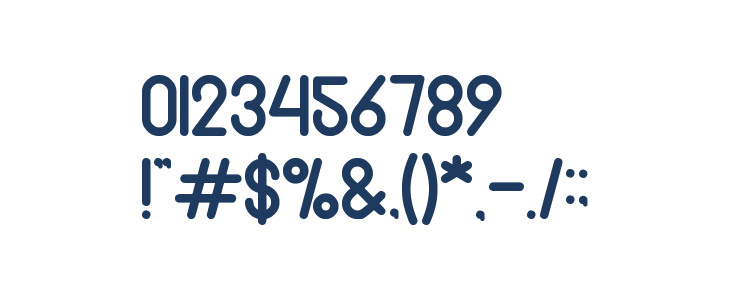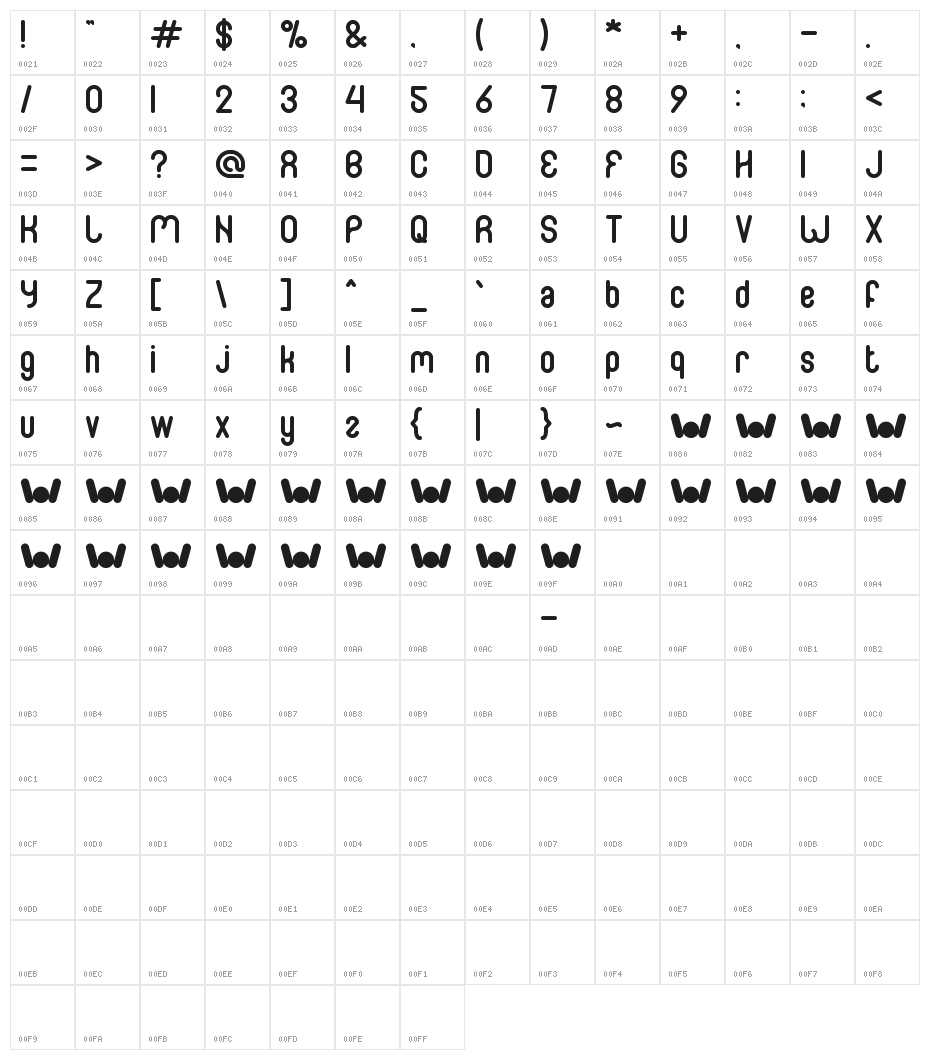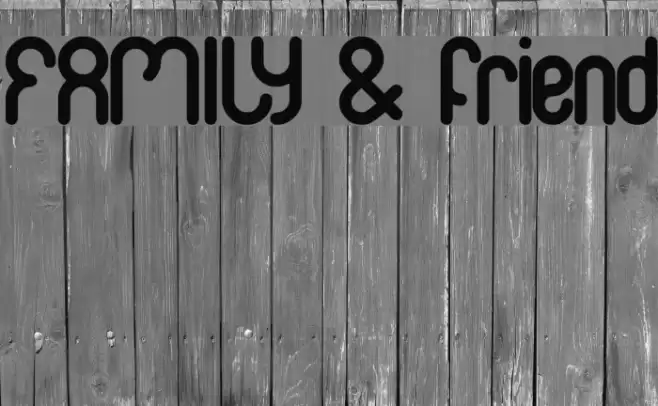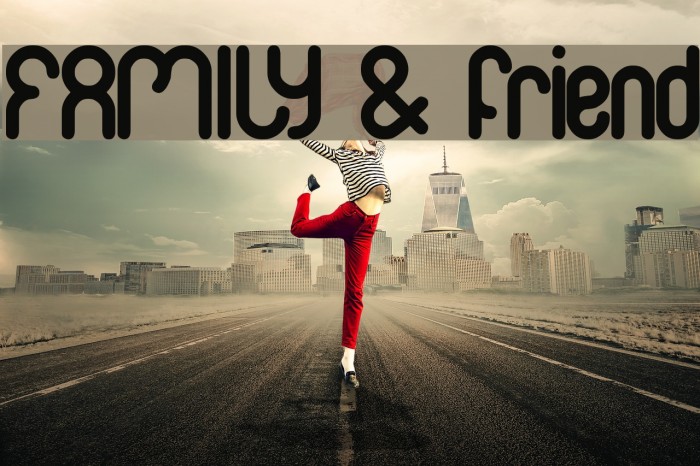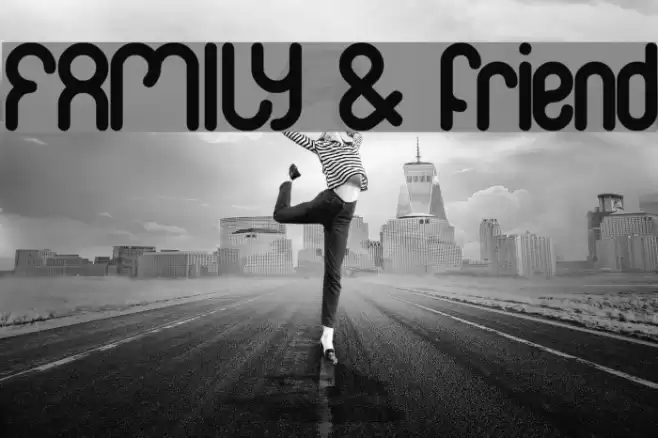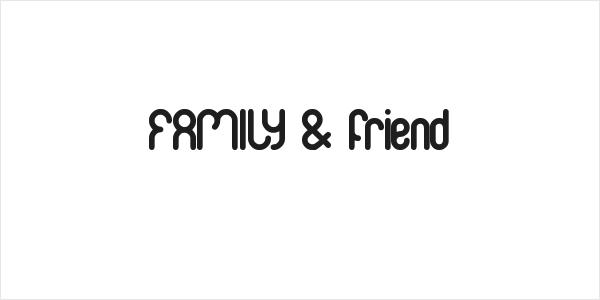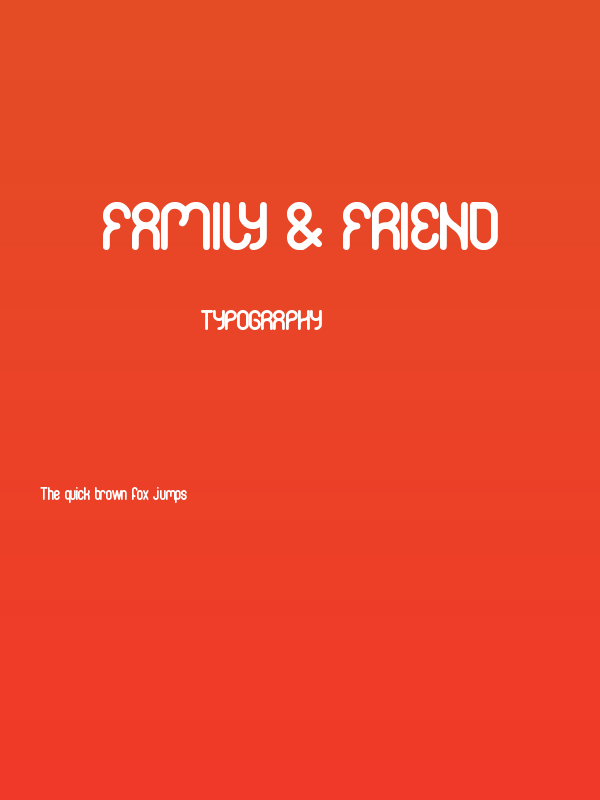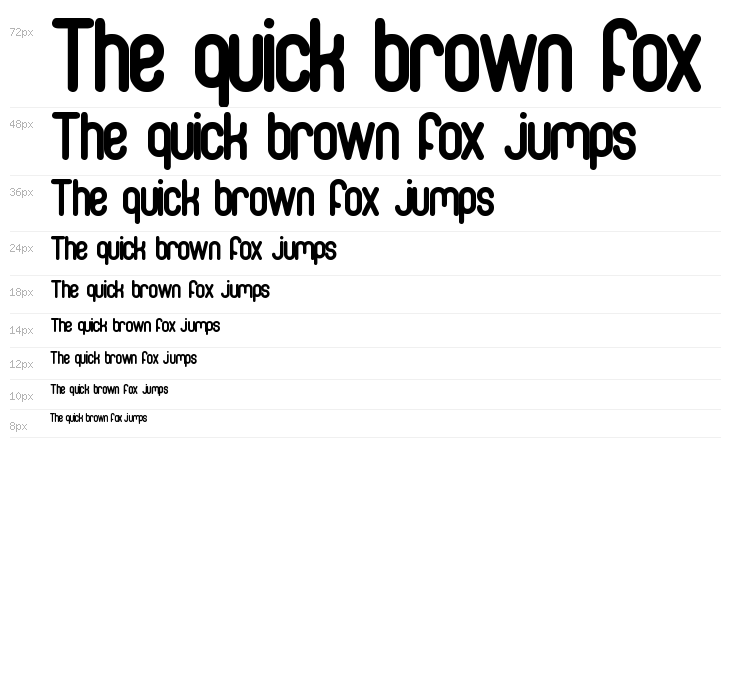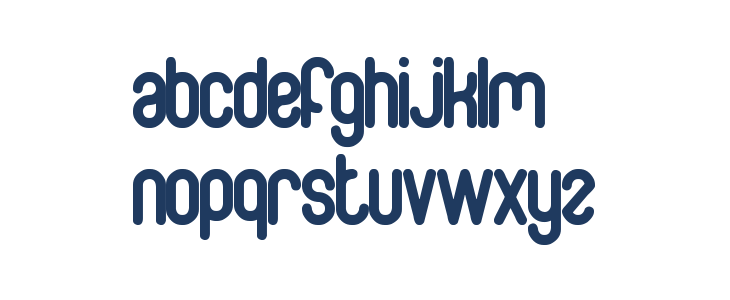
FAMILY & friend Font
FAMILY & friend Description
This font features a playful and rounded design, characterized by its smooth curves and consistent stroke width. The letters are bold and have a uniform thickness, giving them a modern and approachable appearance. The rounded terminals and lack of sharp edges contribute to its friendly and informal style. It maintains a consistent height across both uppercase and lowercase letters, ensuring readability and balance. The numerals and special characters follow the same design principles, providing a cohesive look throughout the character set.
| Proposed Projects | Ideal for children's books, playful branding, casual invitations, and modern web design. |